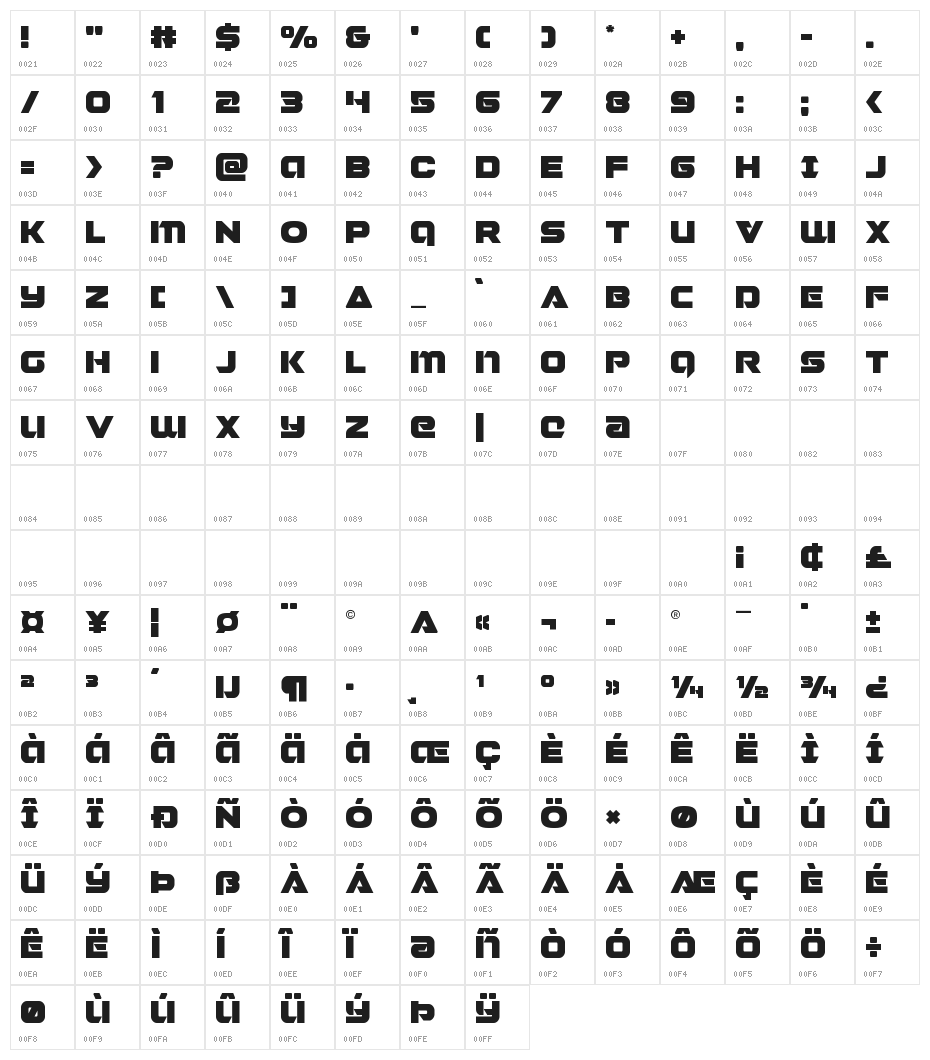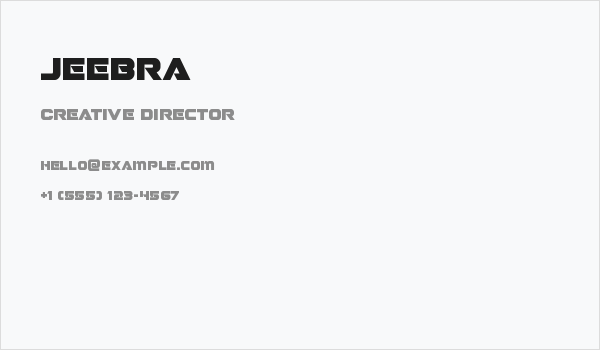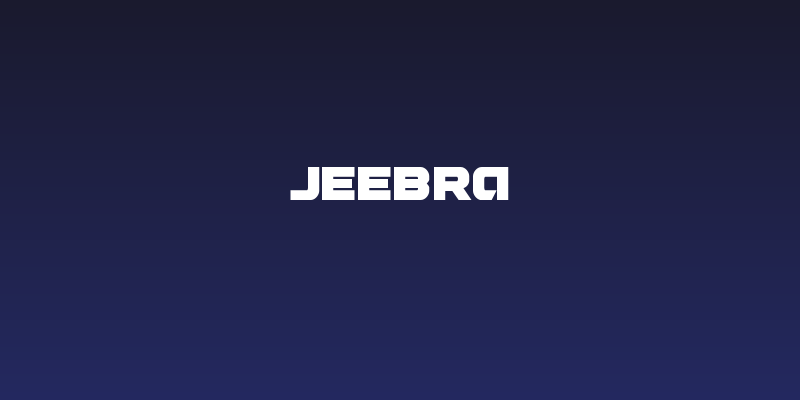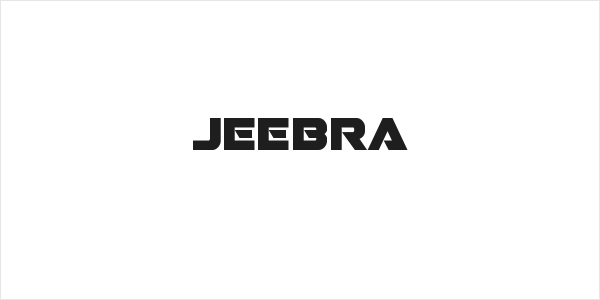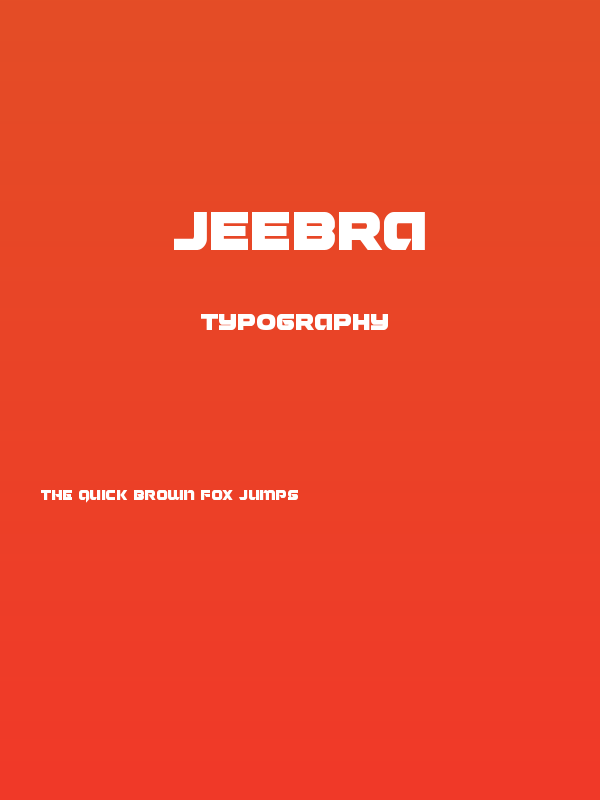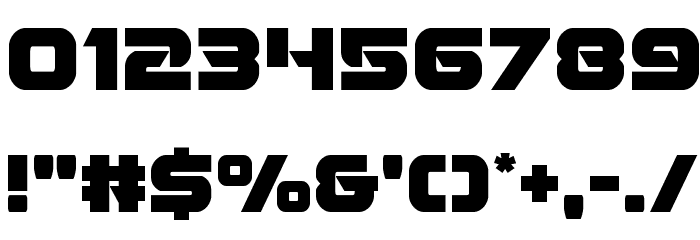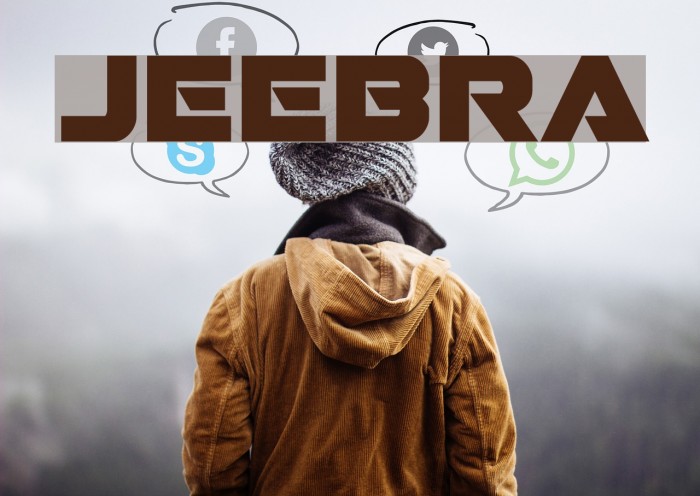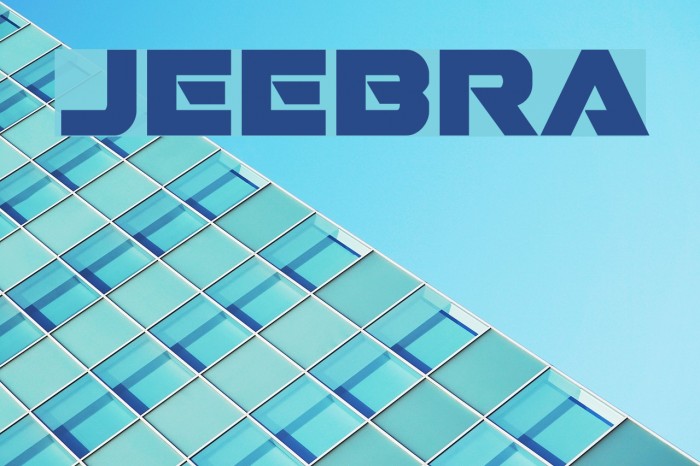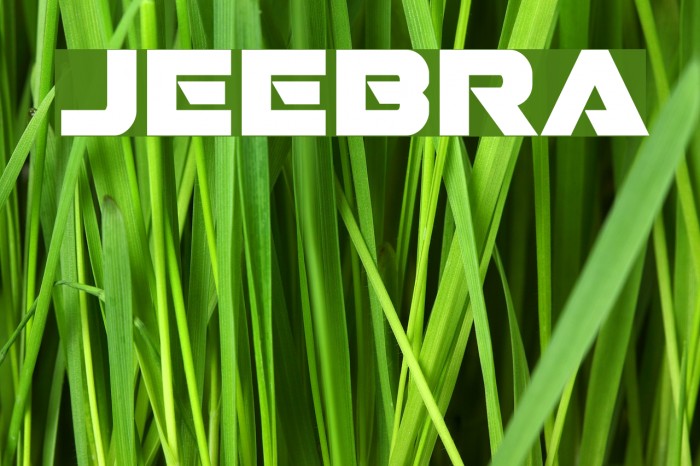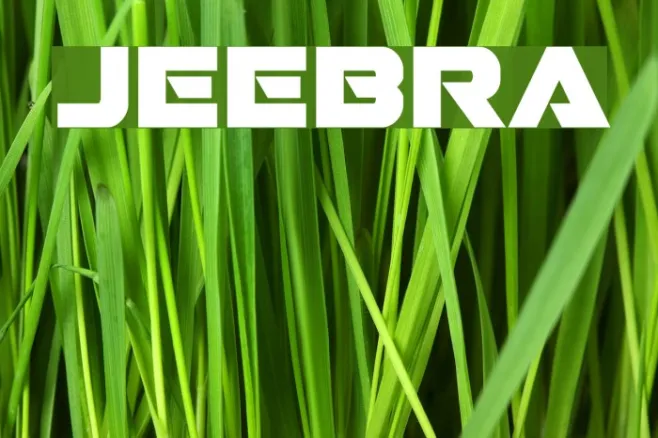
Jeebra Font
Jeebra Description
This font features a bold and geometric design with a futuristic flair. The characters are constructed with strong, angular lines and sharp edges, giving it a distinct and modern appearance. The uppercase and lowercase letters maintain a consistent style, with some characters incorporating unique cutouts and slants that add to its dynamic look. The numerals and special characters follow the same bold and angular theme, ensuring uniformity across all glyphs. This font is ideal for projects that require a strong visual impact and a contemporary aesthetic.
JEEBRA UPPERCASE
JEEBRA LOWERCASE
JEEBRA OTHER CHARS